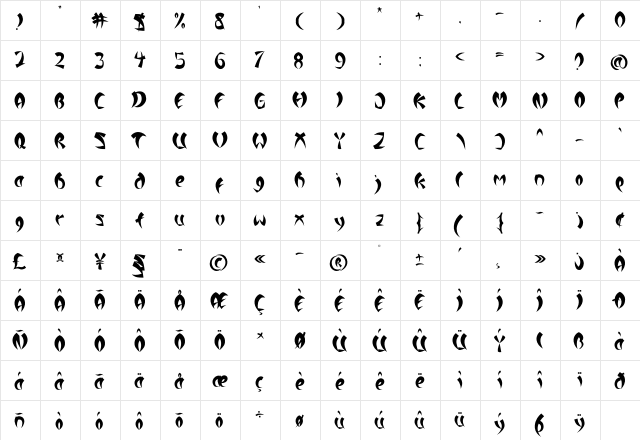
Red Dragons Regular
Design Context for Red Dragons Typeface
Red Dragons is a composed and adaptable typeface that performs quietly and consistently across a wide range of design contexts.